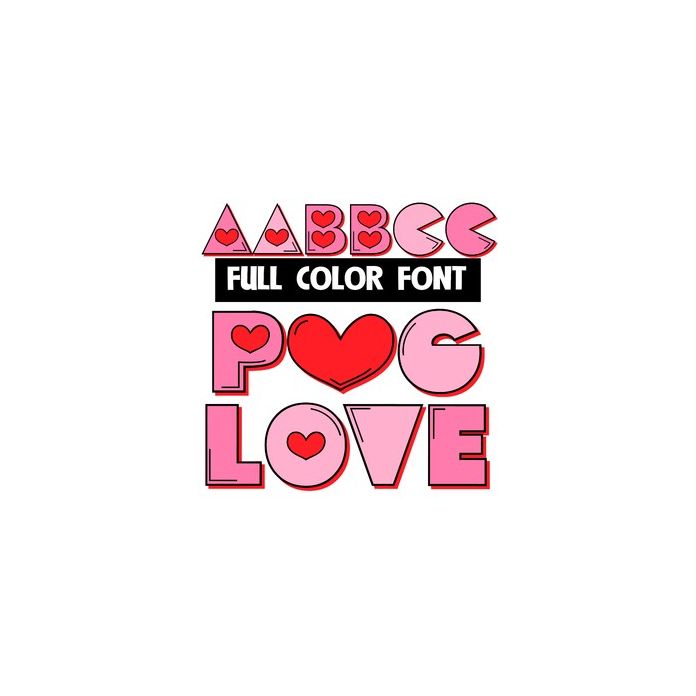
This full-color video-game like font has hearts for holes. This font works best for titles, displays, posters and more. Please note color fonts will show as black in non compatible programs. This font type is compatible with Silhouette Studio.